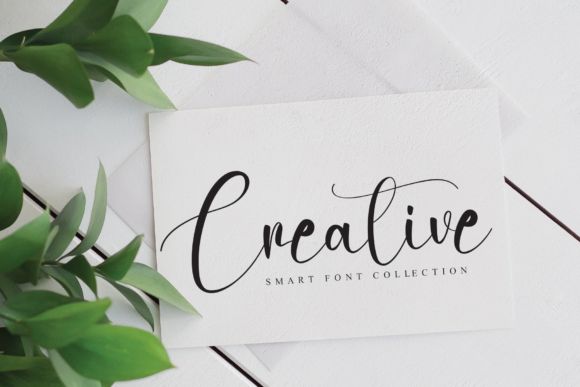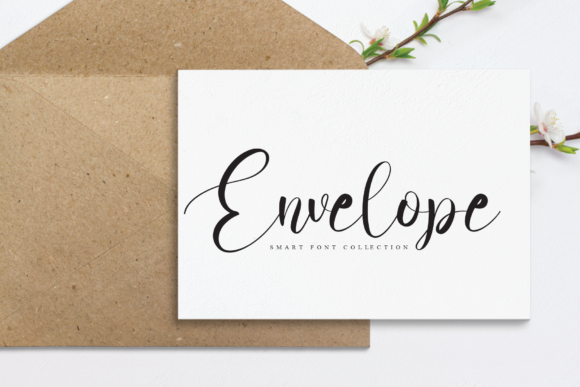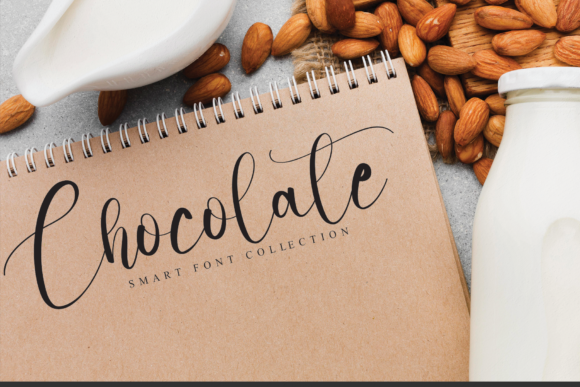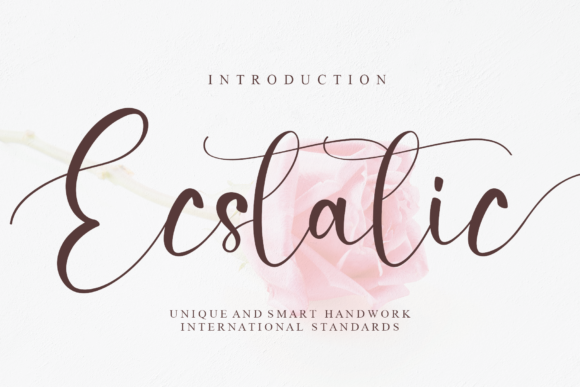
Introducing Ecstatic Font: Elevate Your Designs with Luxury and Elegance
Are you tired of using the same old fonts in your design projects? Look no further! Ecstatic Font is here to revolutionize the way you approach typography. This beautiful light handwritten font boasts a unique feel and a stunning impact that will add a touch of luxury to any design you create.
The Unique Characteristics of Ecstatic Font
Ecstatic Font is a masterclass in elegance and sophistication. Its light handwritten style gives it a personal and approachable feel, while its unique characteristics make it stand out from the crowd. The font’s delicate lines and subtle curves create a sense of movement and fluidity, making it perfect for designs that require a touch of dynamism.
Adding a Luxury Spark to Your Designs
Ecstatic Font is designed to add a luxury spark to any design project. Whether you’re working on a branding campaign, a website, or a print project, this font is sure to elevate your design to the next level. Its sophisticated and elegant style makes it perfect for high-end designs that require a touch of luxury and refinement.
Ecstatic Font is a versatile font that is perfect for designers and crafters alike. Whether you’re a professional designer or a DIY enthusiast, this font is easy to use and can be incorporated into a wide range of design projects. From stationery and packaging to web design and social media graphics, Ecstatic Font is the perfect choice for anyone looking to add a touch of elegance and sophistication to their designs.
Key Features of Ecstatic Font
- Beautiful light handwritten style
- Unique feel and stunning impact
- Luxury and elegant style
- Perfect for high-end designs
- Easy to use and versatile
- Suitable for a wide range of design projects
Tips and Tricks for Getting the Most Out of Ecstatic Font
Here are a few tips and tricks for getting the most out of Ecstatic Font:
- Use Ecstatic Font as a headline font to add a touch of luxury and elegance to your design
- Pair Ecstatic Font with a sans-serif font for a modern and sophisticated look
- Experiment with different font colors and styles to add depth and interest to your design
- Use Ecstatic Font in combination with images and graphics to create a visually appealing design
In conclusion, Ecstatic Font is a beautiful and elegant font that is perfect for designers and crafters looking to add a touch of luxury and sophistication to their designs. Its unique feel and stunning impact make it a versatile font that can be used in a wide range of design projects. With its ease of use and flexibility, Ecstatic Font is sure to become a go-to font in your design arsenal.